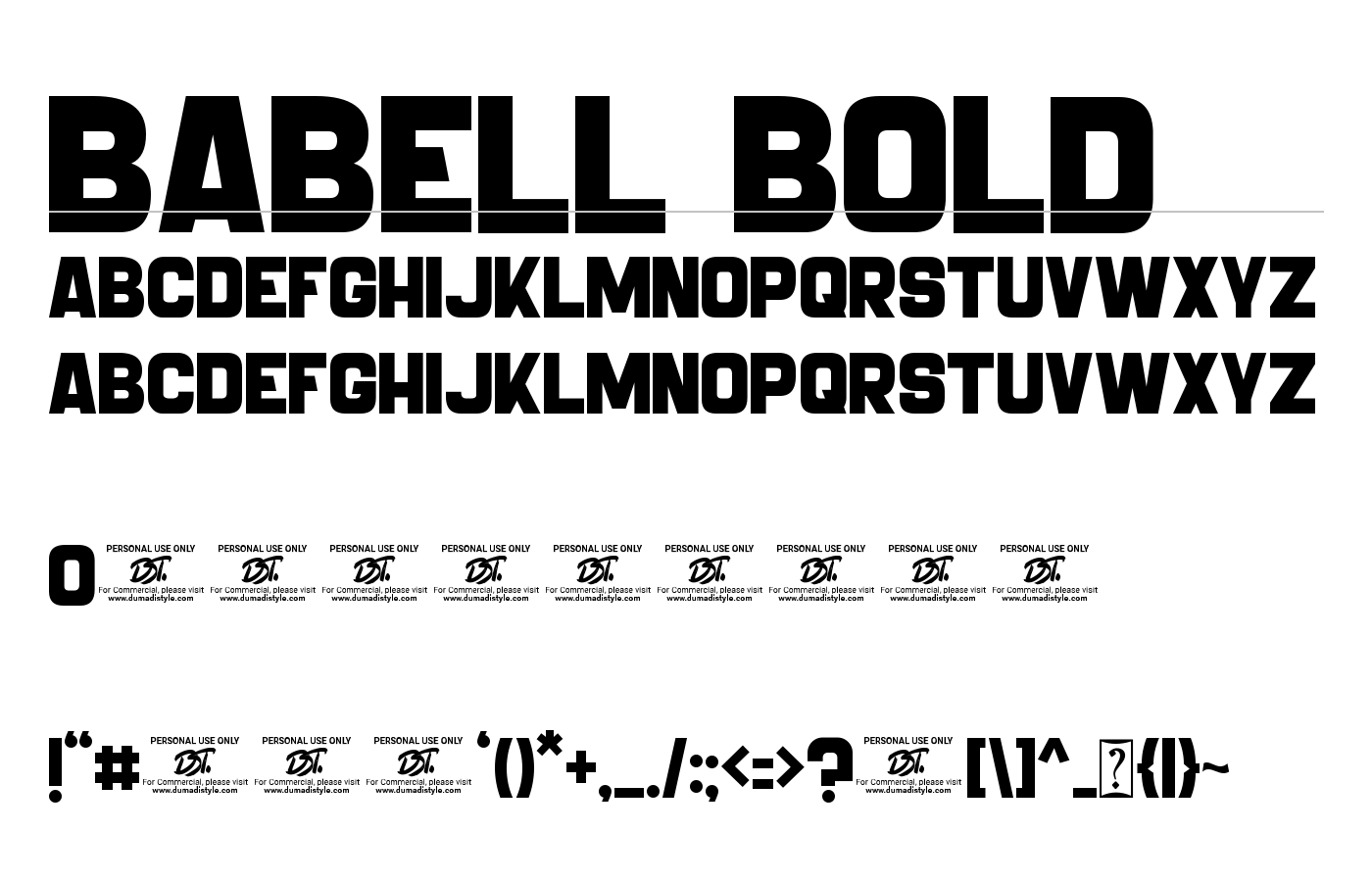
Babell Bold is a strong, sans-serif display font with a bold weight and slightly condensed width, featuring tall, blocky letterforms with low contrast between strokes. Its geometric shapes and sharp edges give it a modern and assertive personality, making it ideal for impactful headlines, logos, and branding that demand attention. This font works best in designs where boldness and clarity are key, such as posters, sports branding, and editorial titles.
Babell Bold Font
About Babell Bold Font